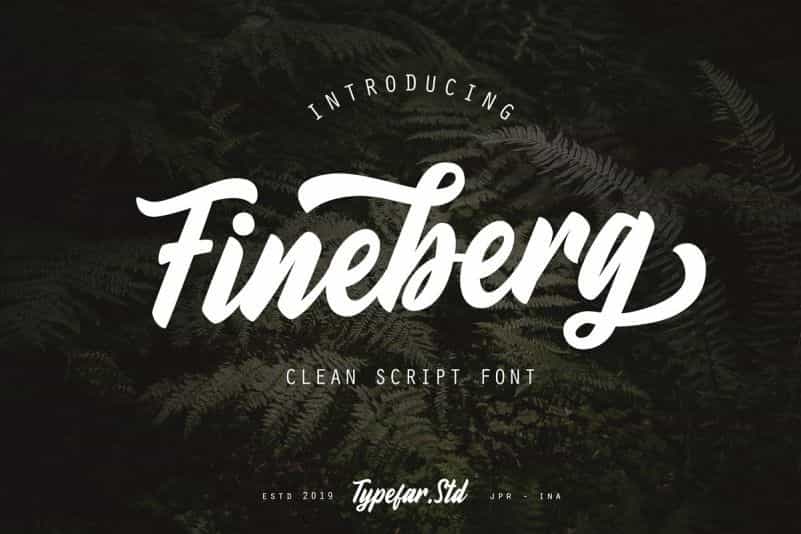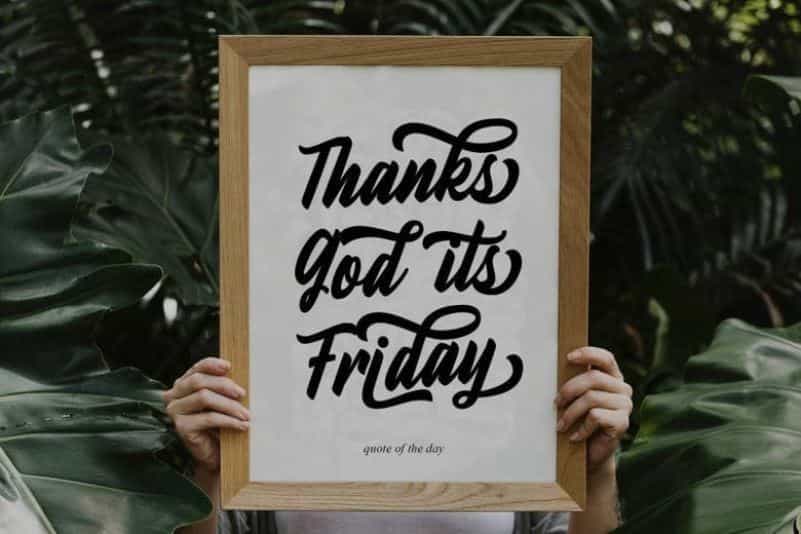
Discover Fineberg Script Font, part of the Brush Calligraphy collection—a versatile and unique font perfect for adding a personal touch to your projects. Download it for free and enjoy crafting designs with style, from invitations to social media posts. This font is available exclusively for personal use, giving you the freedom to create without limits. Unlock your creativity with Fineberg Script Font today!
Proudly presents Daytonia Font, the latest product! This is hand painted typeface which aims at helping you to make the appearance of beautiful custom hand-lettering. It is a creation and sharing of Typefar. Fineberg Script Font is a neat script font.